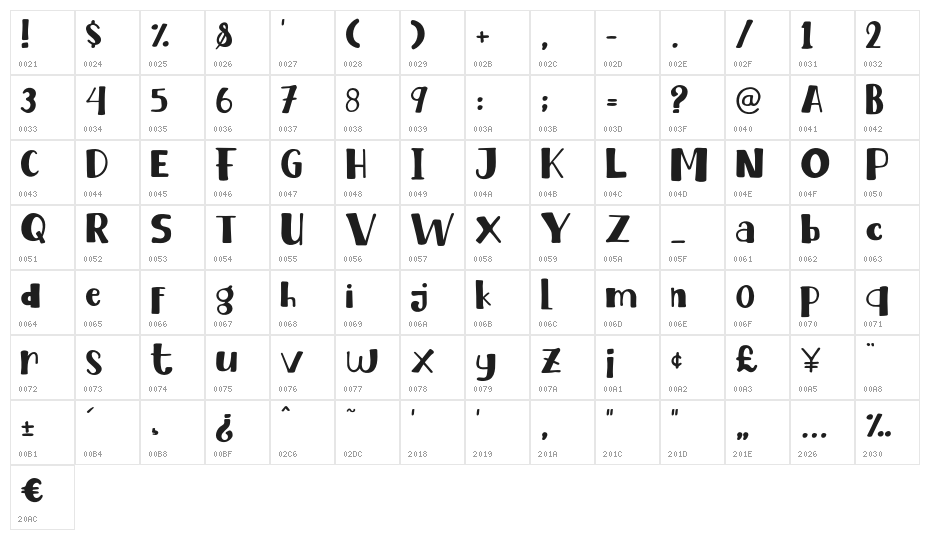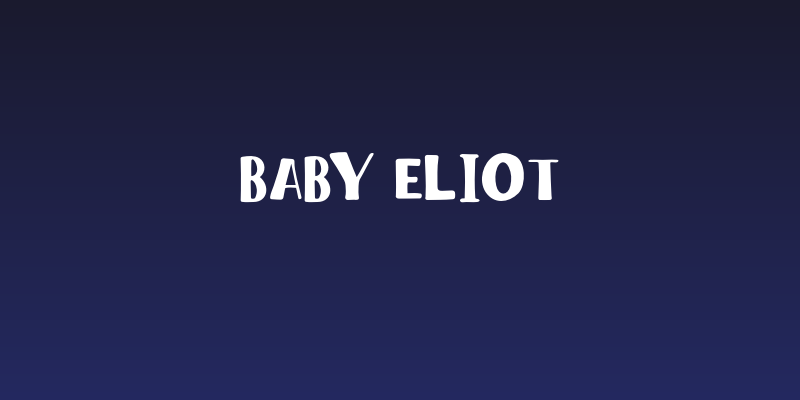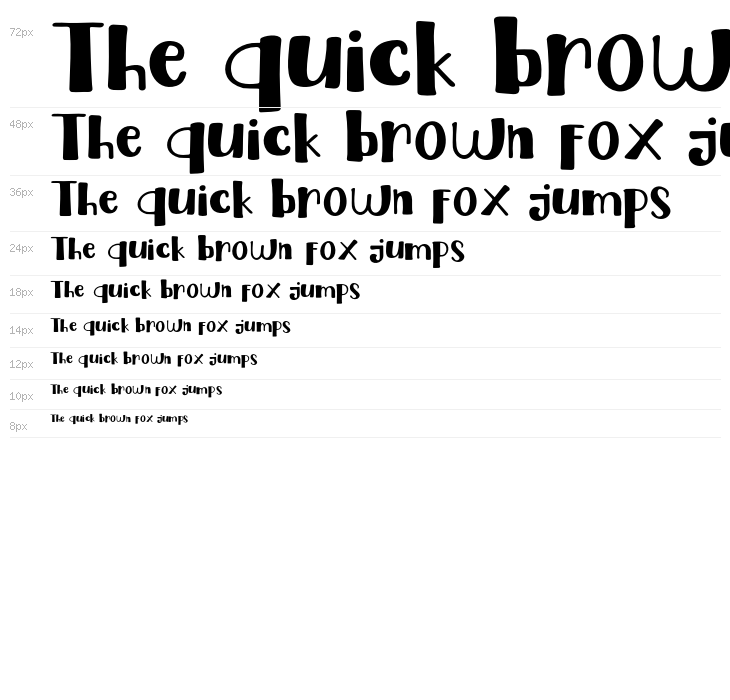
Baby Eliot Font
Baby Eliot Description
This playful and whimsical font features a hand-drawn aesthetic with a charmingly uneven baseline, giving it a lively and informal appearance. The characters are bold and rounded, with a slightly irregular stroke that adds to its handcrafted feel. Uppercase letters are tall and assertive, while lowercase letters maintain a friendly and approachable vibe. The numerals and special characters continue this theme, offering a cohesive look across all elements. This font's unique style makes it perfect for projects that require a touch of personality and creativity.
| Proposed Projects | Ideal for children's books, playful branding, greeting cards, and creative posters. |